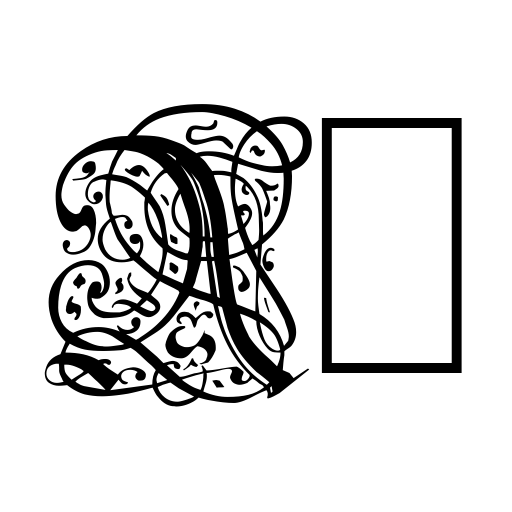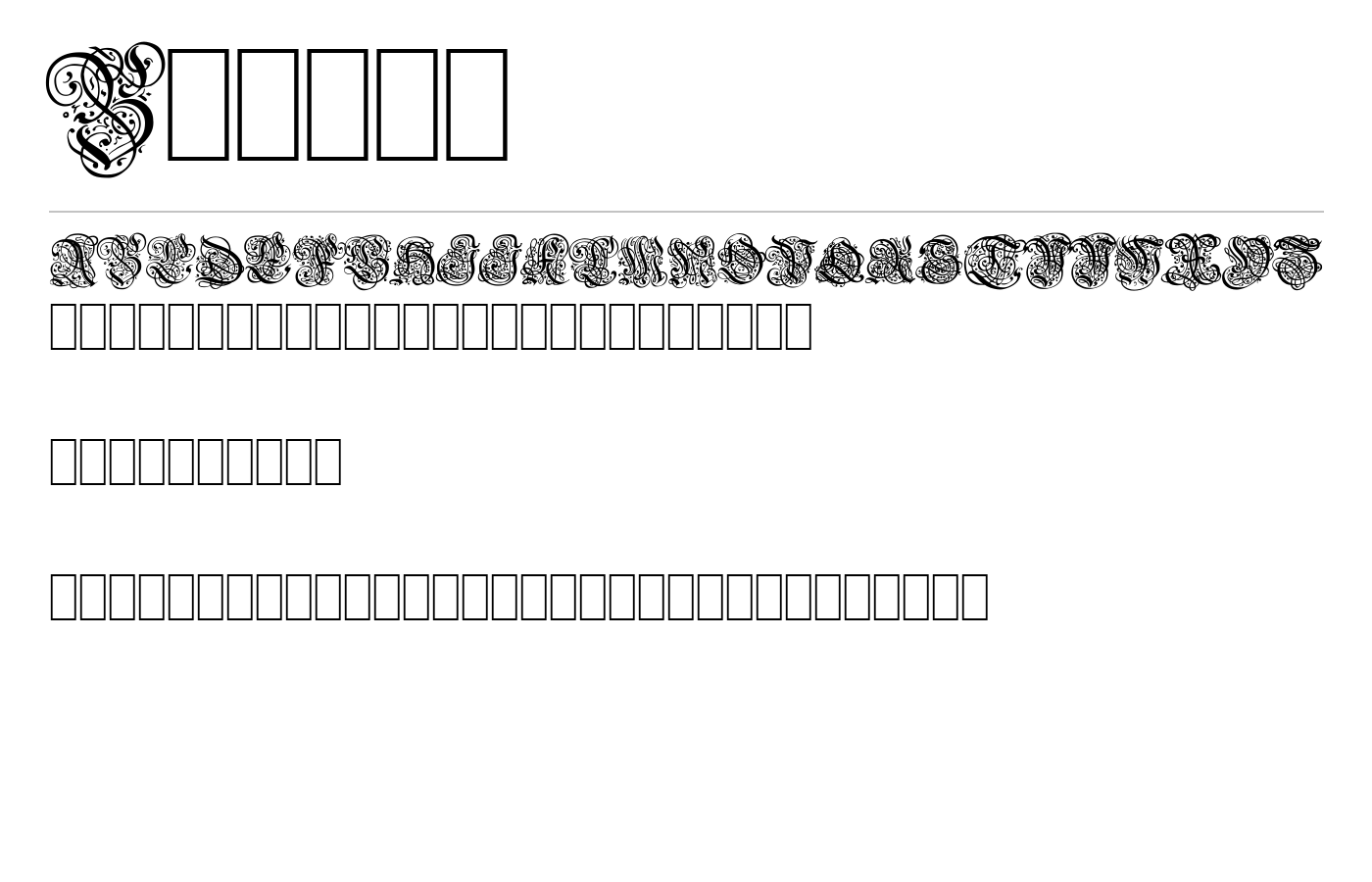
Barock Font is an ornate and highly decorative serif typeface that draws inspiration from elaborate Baroque aesthetics, featuring intricate swirls and flourishes that create a rich, classic appearance. This font is best suited for luxury branding, decorative headlines, and artistic projects where an elegant and vintage touch is desired, as its detailed design excels at making a bold, sophisticated statement rather than serving long passages of text. Its unique, elaborate letterforms evoke a sense of history and grandeur, making it perfect for invitations, logos, and editorial uses that require a strong visual impact.
Barock Font